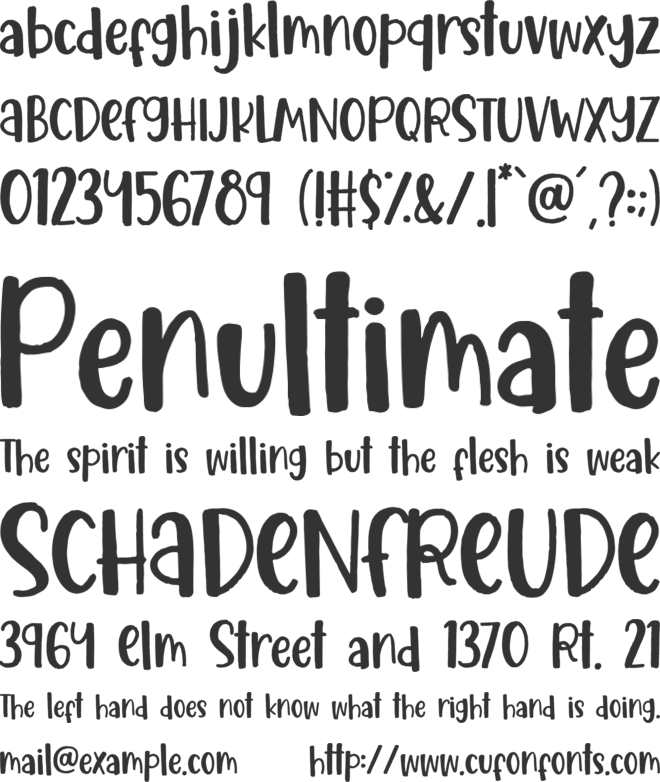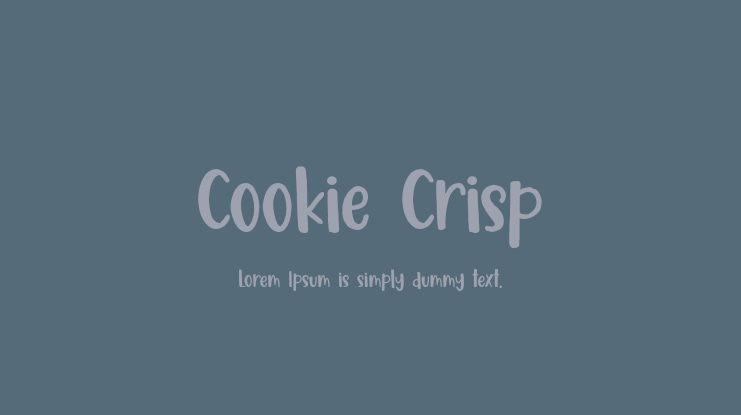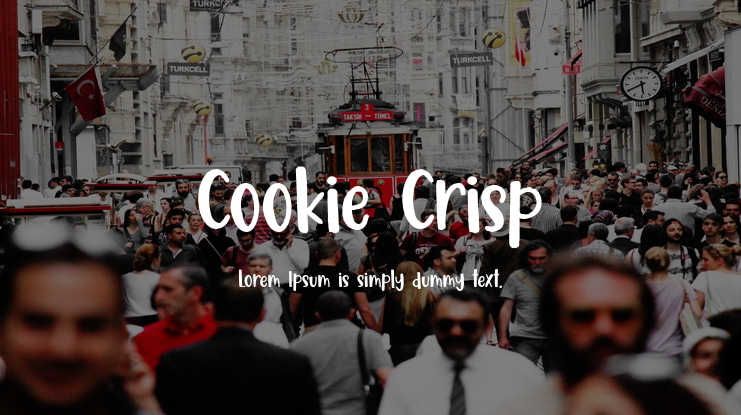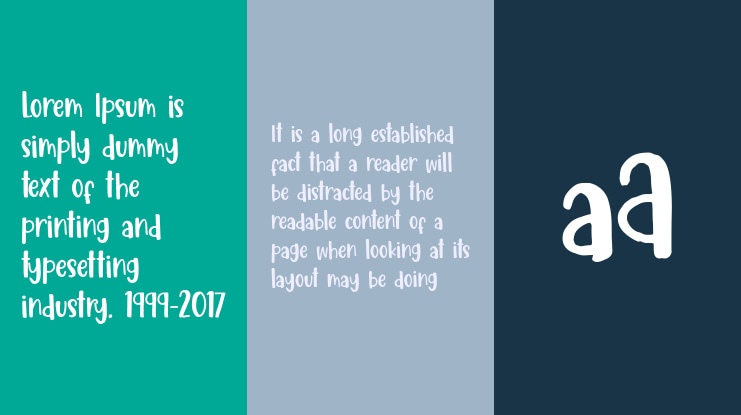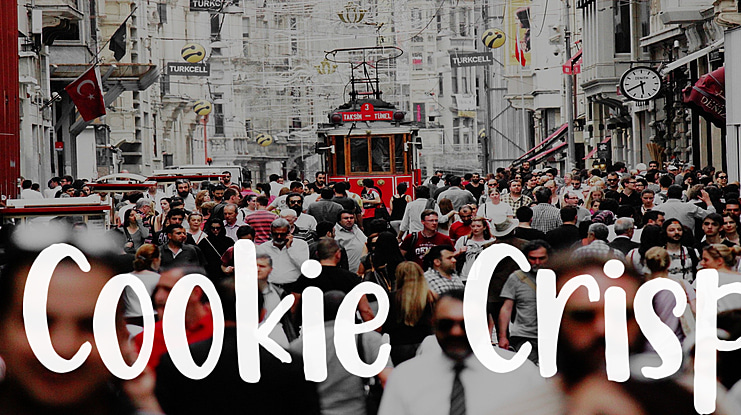
Cookie Crisp Font
Dimas Prasetyo
This enchanting font will turn any creative idea into a true standout. Perfect fit for all of your logos, branding, social media, etc. Get creative with its unique playfulness, and use it to brighten up any crafting project!